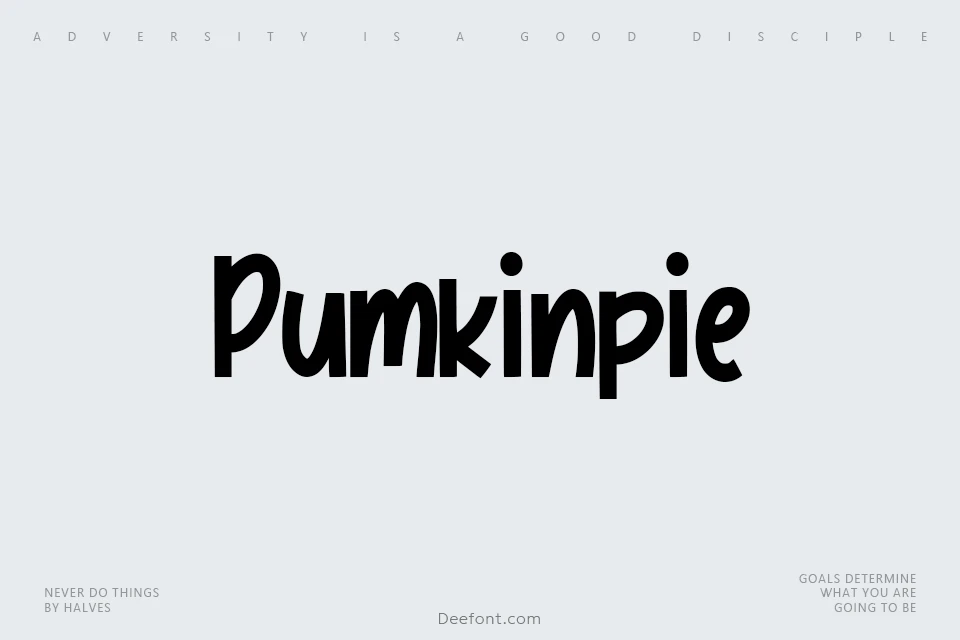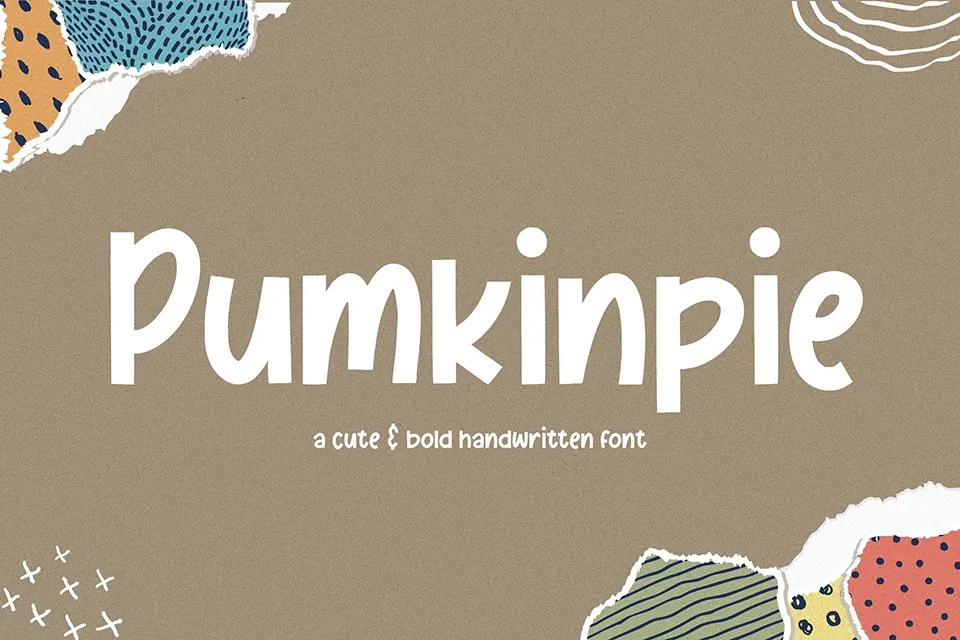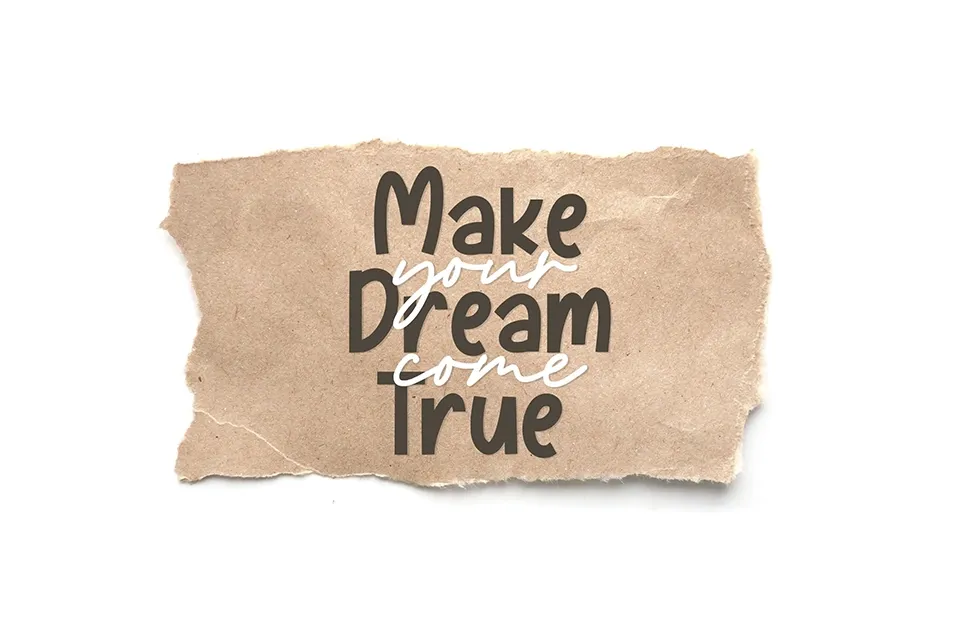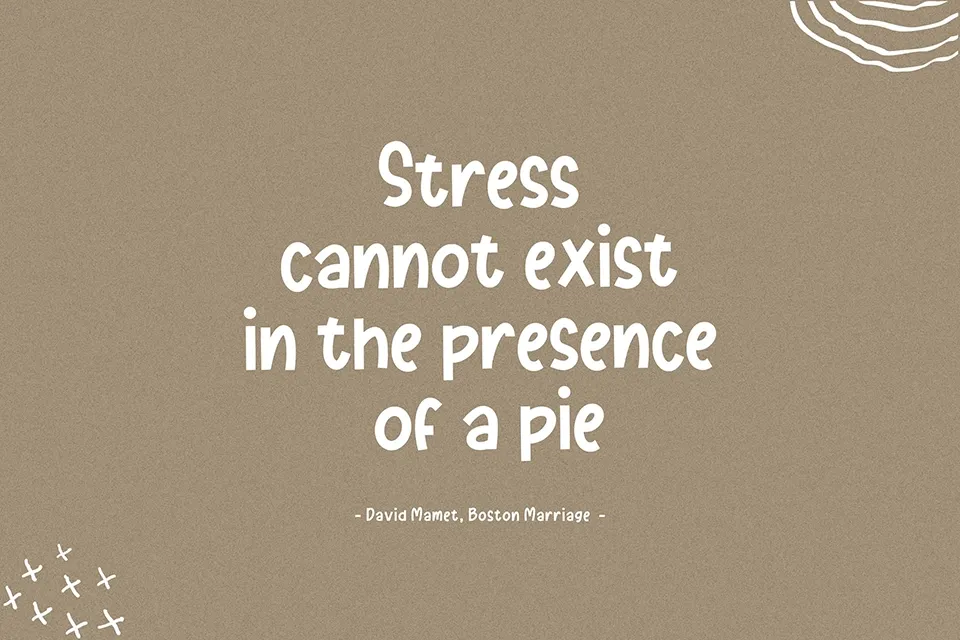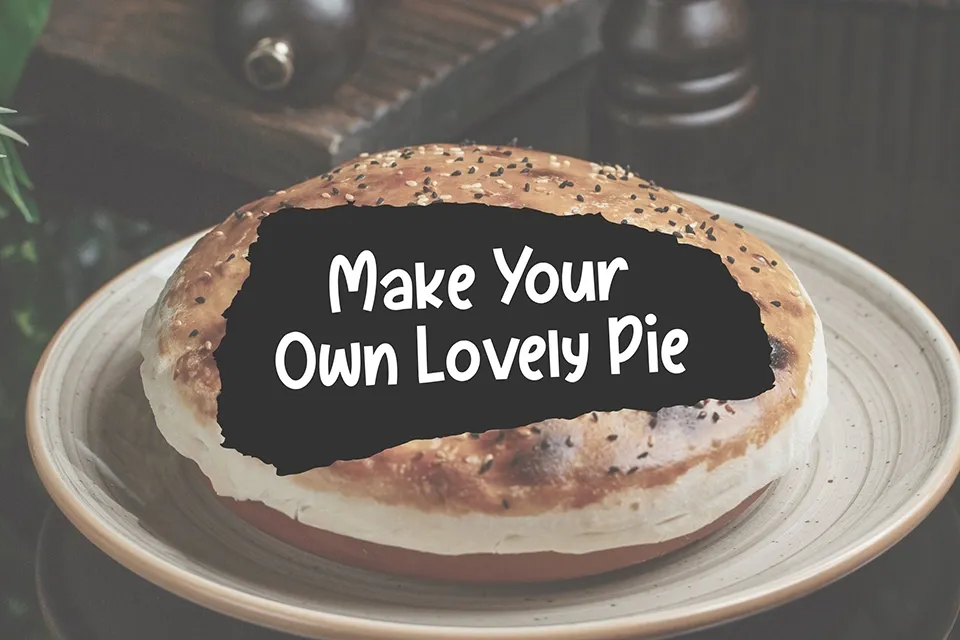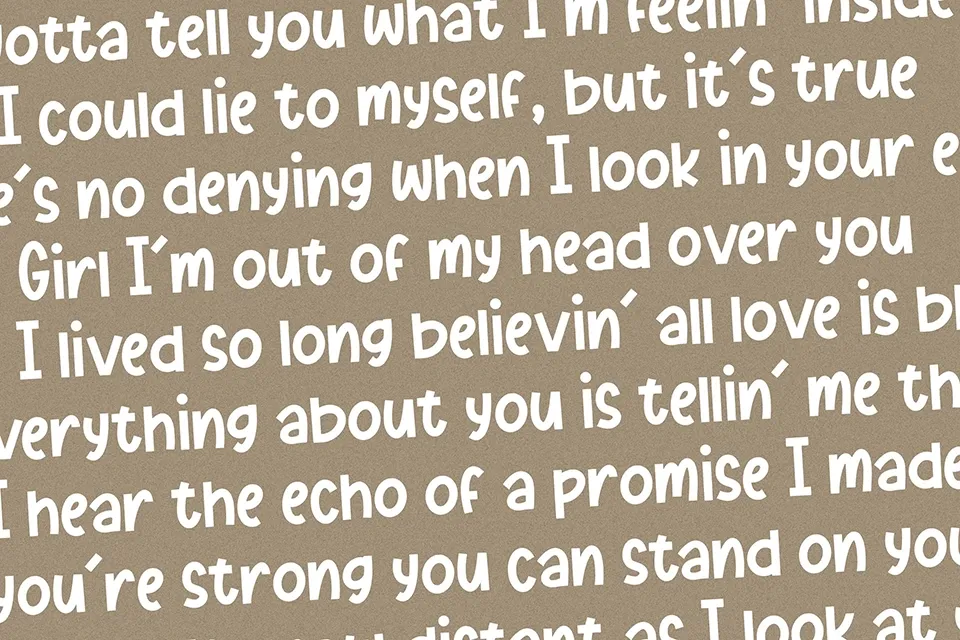
Pumkinpie Font
Pumkinpie Font is a cute and bold handwritten font that brings a whimsical, playful touch to your designs. With its large x-height, quirky shapes, and fun personality, this font is perfect for children’s projects, posters, invitations, and any creative work that needs a friendly, approachable vibe. Its handwritten style makes it ideal for adding a personal, joyful feel to your typography.